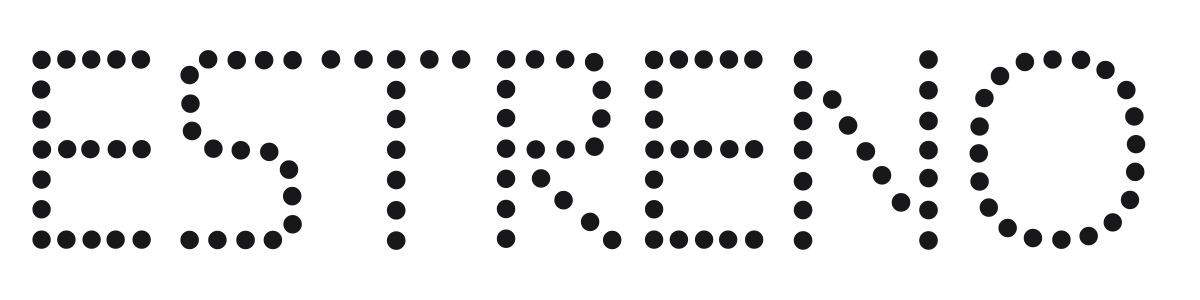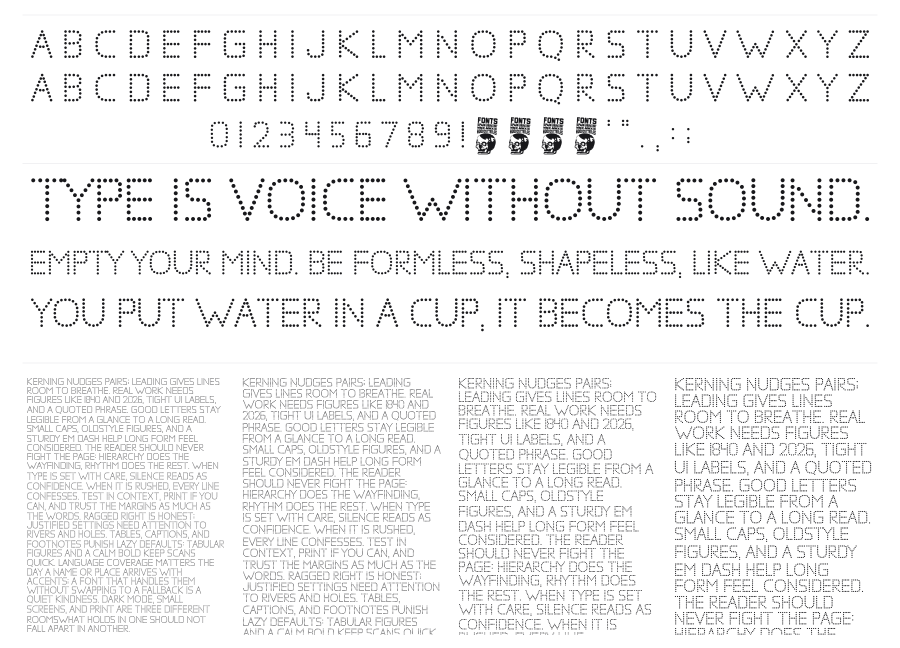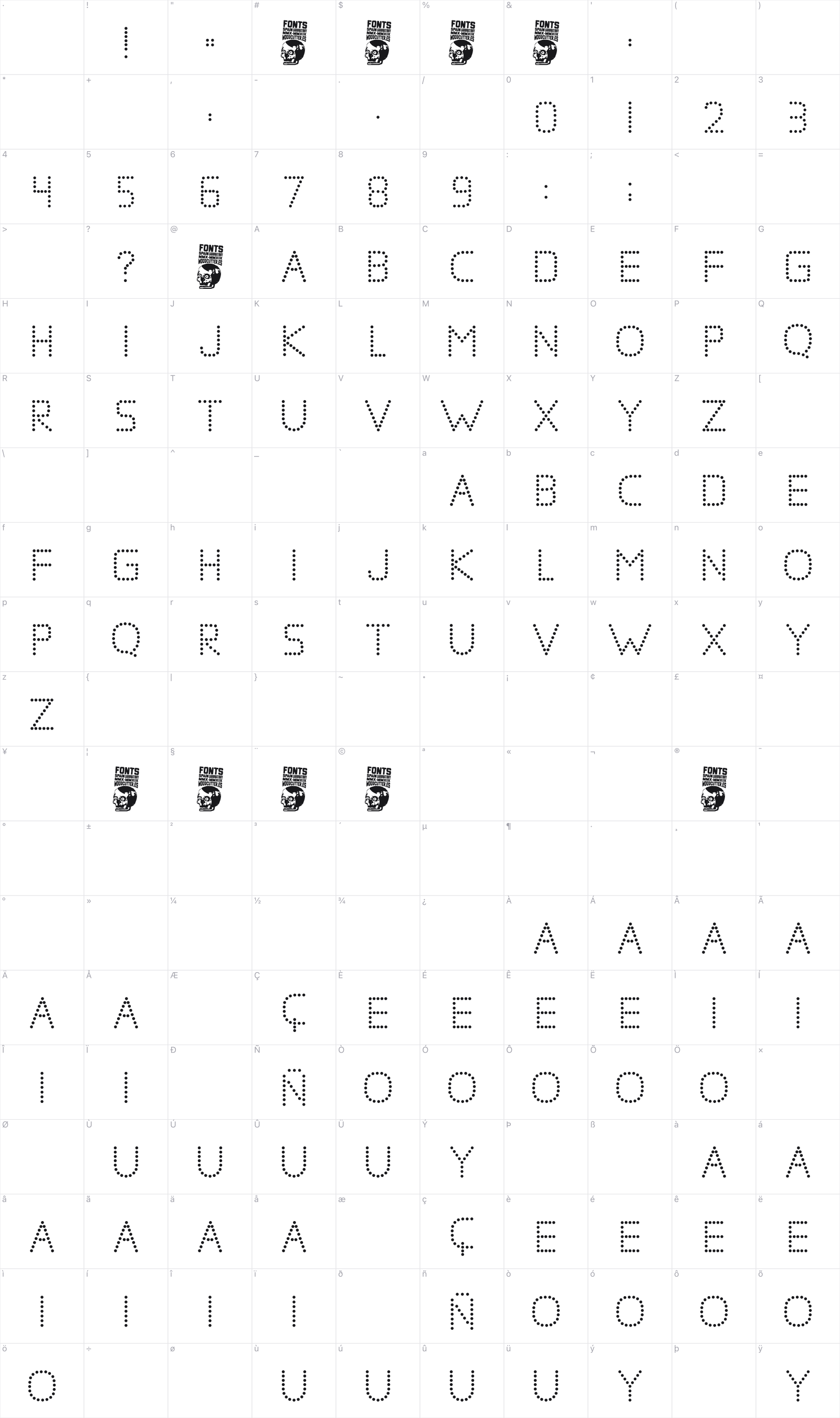
Estreno
Estreno is a dot-matrix display font by Woodcutter Manero that builds every letter from a uniform grid of circular dots. The construction recalls vintage LED scoreboards, stadium signs, and early digital displays, giving it a nostalgic tech energy that still reads as bold and graphic at large sizes. It works best as a headline or logotype element where the dot pattern has room to breathe.